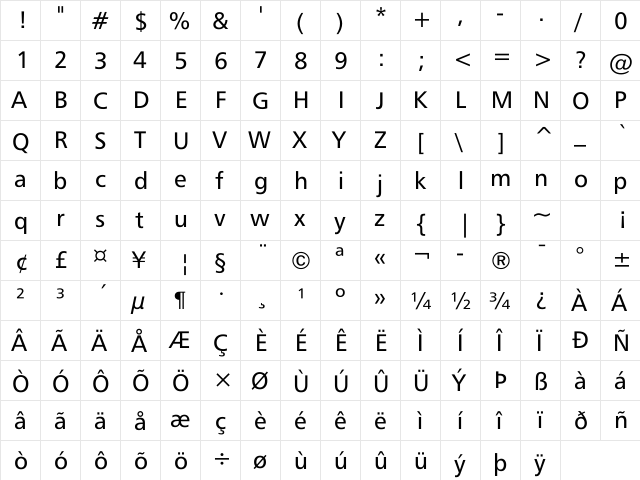
Mayfarling Regular
Design Context for Mayfarling Typeface
Mayfarling takes a measured approach to typography — its balanced proportions and neutral character make it a reliable workhorse for both digital and print work.
Pro Tip: Use Mayfarling in both headline and body roles to test its range before committing to a single application.